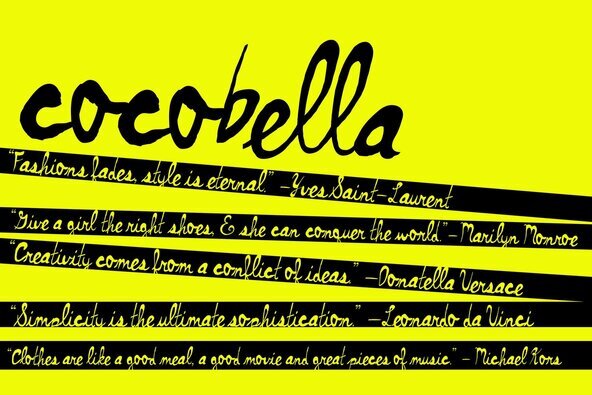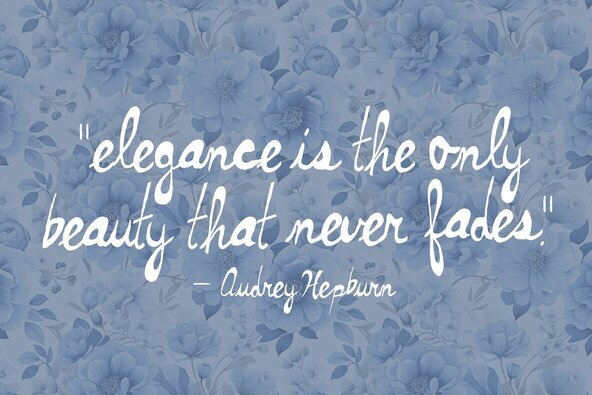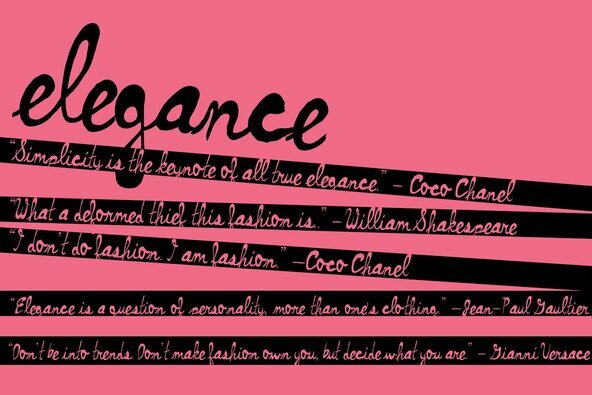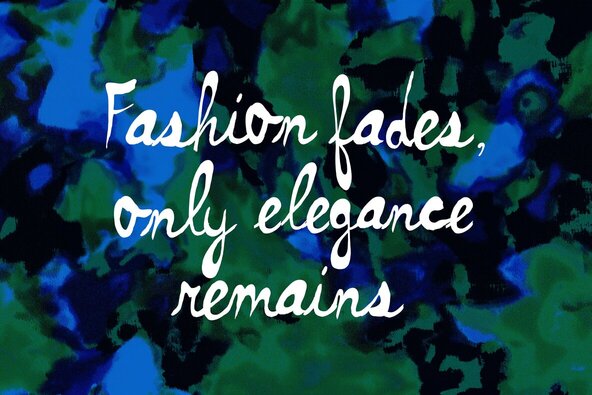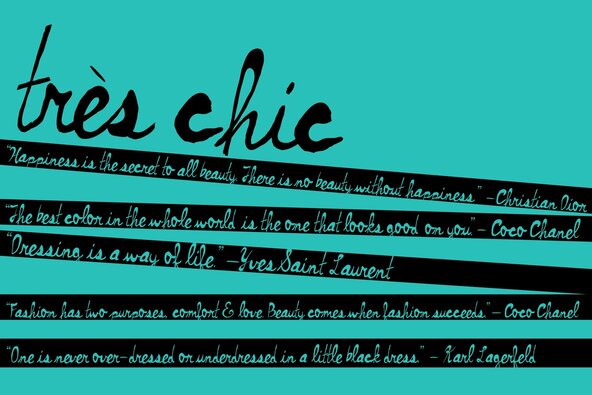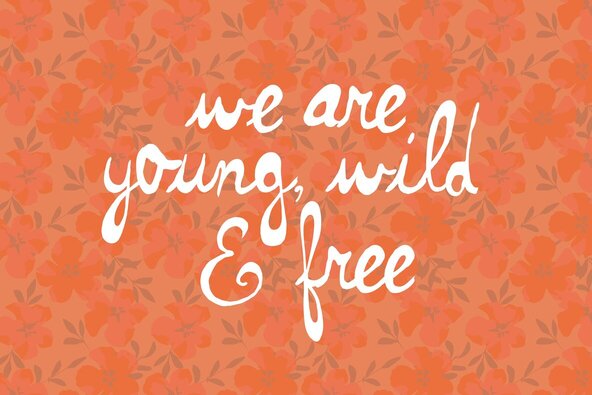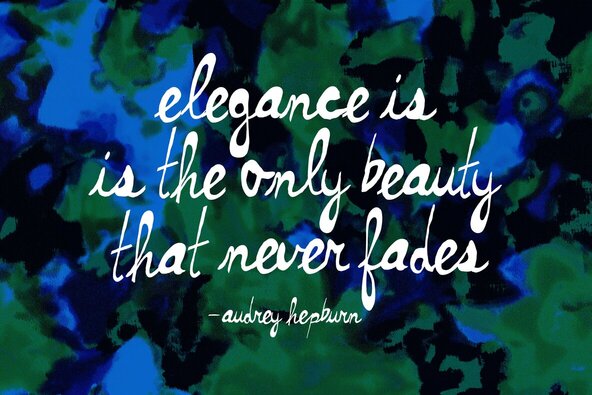
Cocobella is a beautiful chic and elegant hand painted font. The characters are uneven which gives Cocobella an edgy unique look. Cocobella will work best for clothing brands, fashion magazines,advertising, books, greeting cards, invitations, weddings and...
Cocobella is a beautiful chic and elegant hand painted font. The characters are uneven which gives Cocobella an edgy unique look. Cocobella will work best for clothing brands, fashion magazines,advertising, books, greeting cards, invitations, weddings and any time you feel sophisticated and chic.